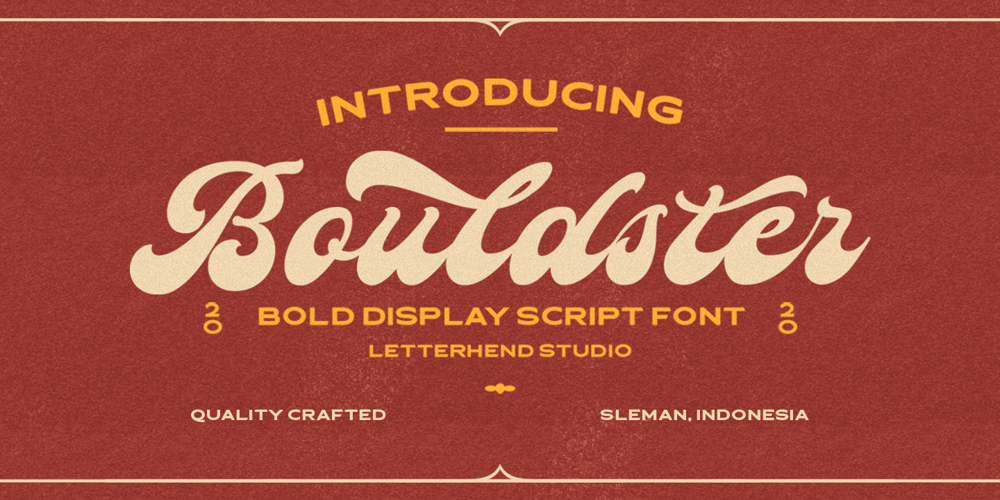
Bouldster Font Family was designed by Hendry Juanda and published by Letterhend. Bouldster contains 1 styles and family package options. Introducing, Bouldster – a standout bold script with a touch of nostalgic look and feel. Inspired by 50s 60s signages, this font made to bring back the good ol’ days. This type of font perfectly made to be applied especially in logo, headline, signage and the other various formal forms such as invitations, labels, logos, magazines, books, greeting / wedding cards, packaging, fashion, make up, stationery, novels, labels or any type of advertising purpose.Features : uppercase & lowercase numbers and punctuation multilingual alternates / swashes and ligatures PUA encoded We highly recommend using a program that supports OpenType features and Glyphs panels like many of Adobe apps and Corel Draw, so you can see and access all Glyph variations.